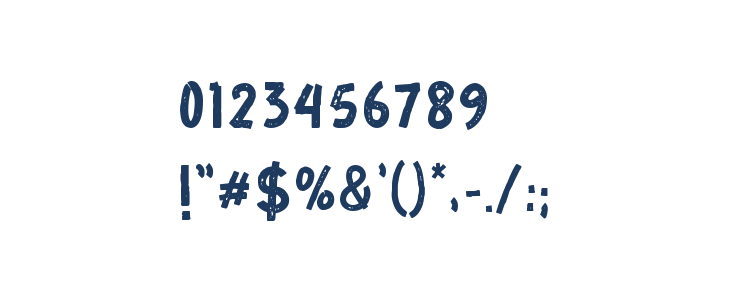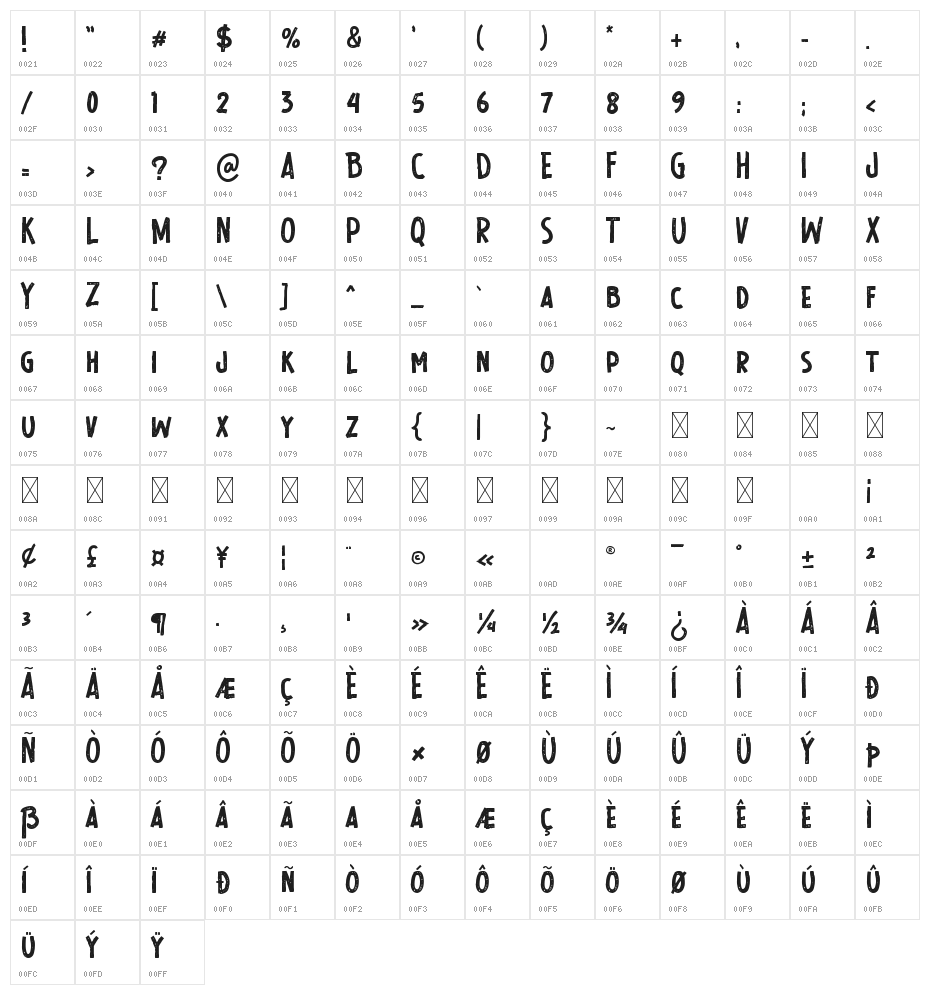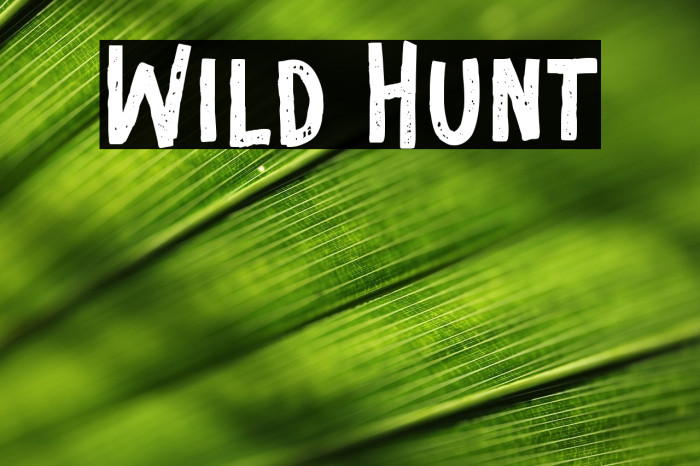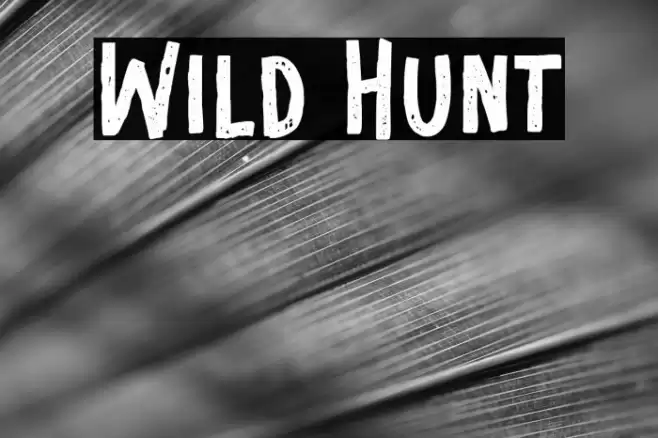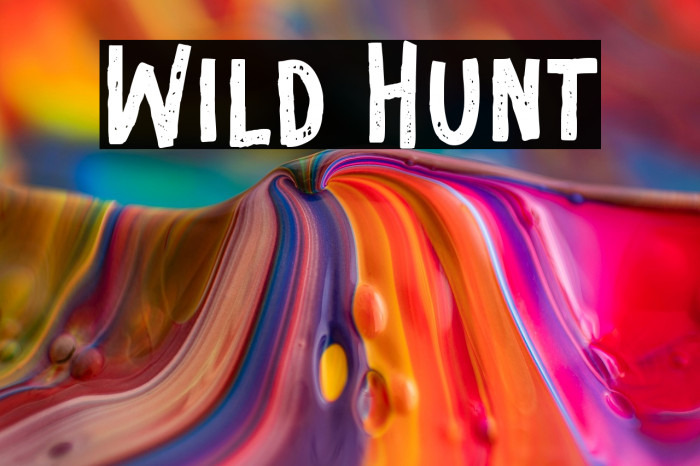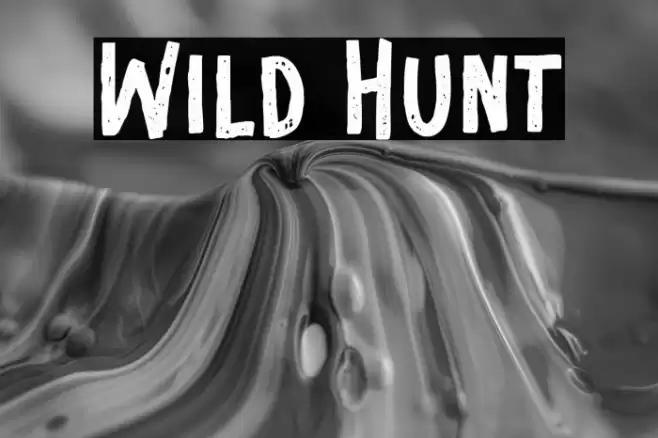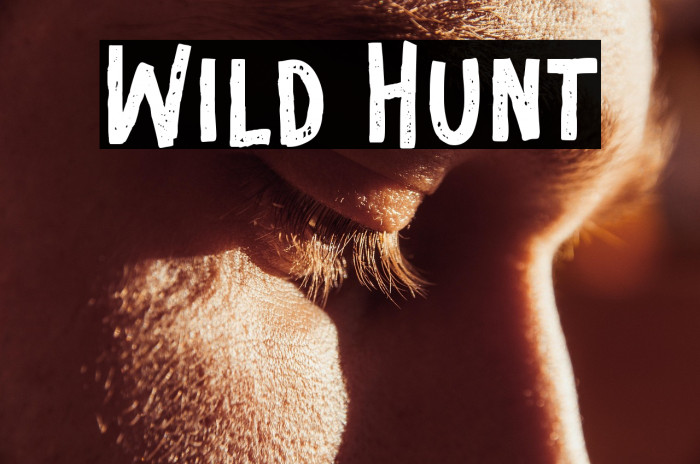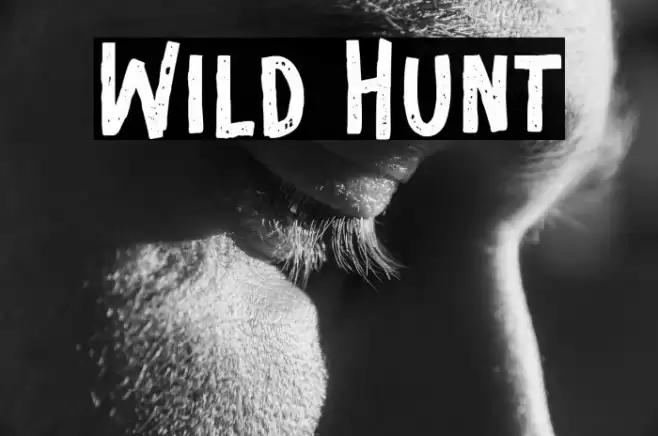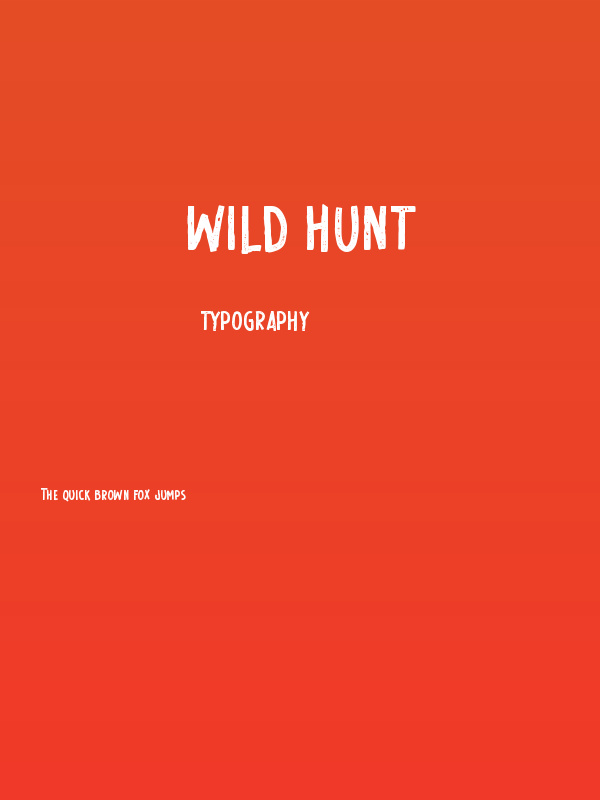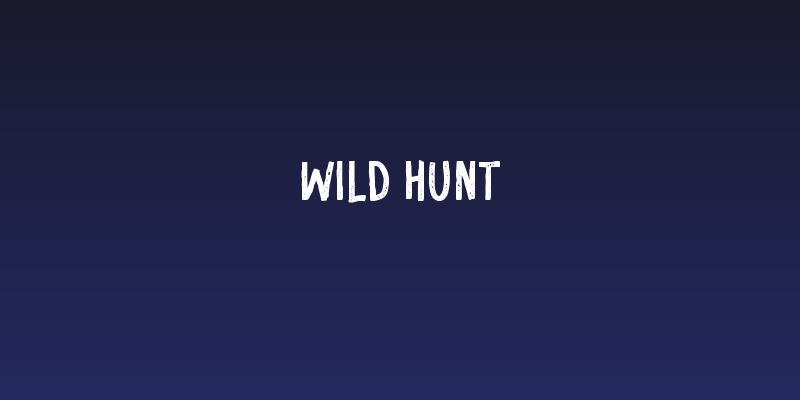
Wild Hunt Font
Wild Hunt Description
This font exudes a rugged and adventurous spirit, characterized by its bold, hand-drawn appearance. Each letter features a slightly irregular shape, giving it a dynamic and energetic feel. The texture within the letters adds a distressed, weathered look, reminiscent of vintage posters or outdoor signage. The uppercase and lowercase letters maintain a consistent style, with a playful yet assertive presence. Numbers and special characters are equally bold, ensuring a cohesive look across all text elements. This font is perfect for projects that require a touch of wilderness or a handcrafted aesthetic.
| Overall Style | Vintage, Decorative |
| Proposed Projects | Ideal for outdoor-themed branding, adventure posters, rustic packaging, or any project needing a handcrafted touch. |